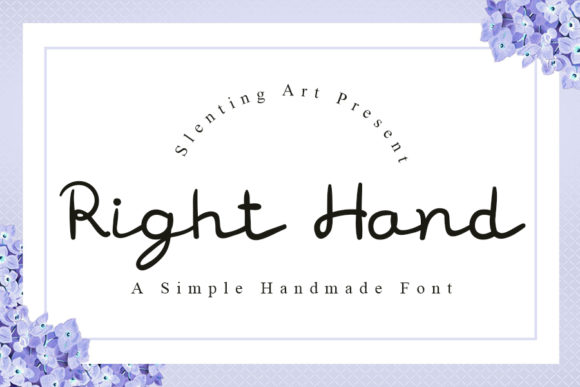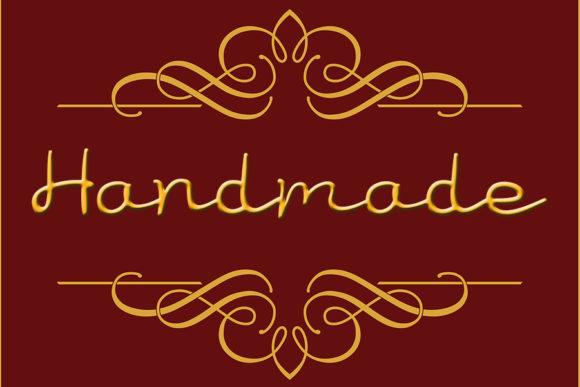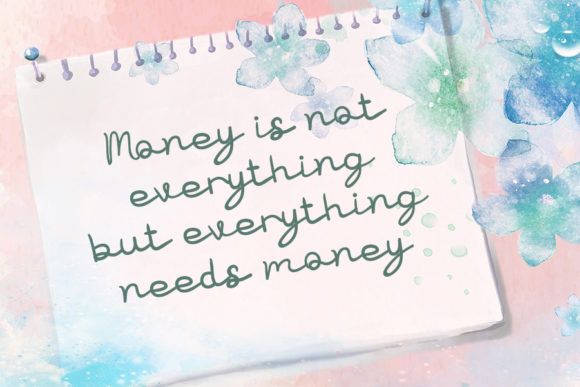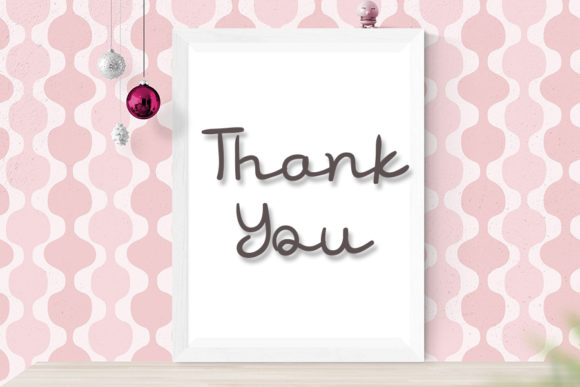
About Right Hand Font
Right Hand is a simple script font with a relaxed theme, featuring a cute style. No matter the topic, this font will be an incredibly asset to your fonts’ library, as it has the potential to elevate any creation.